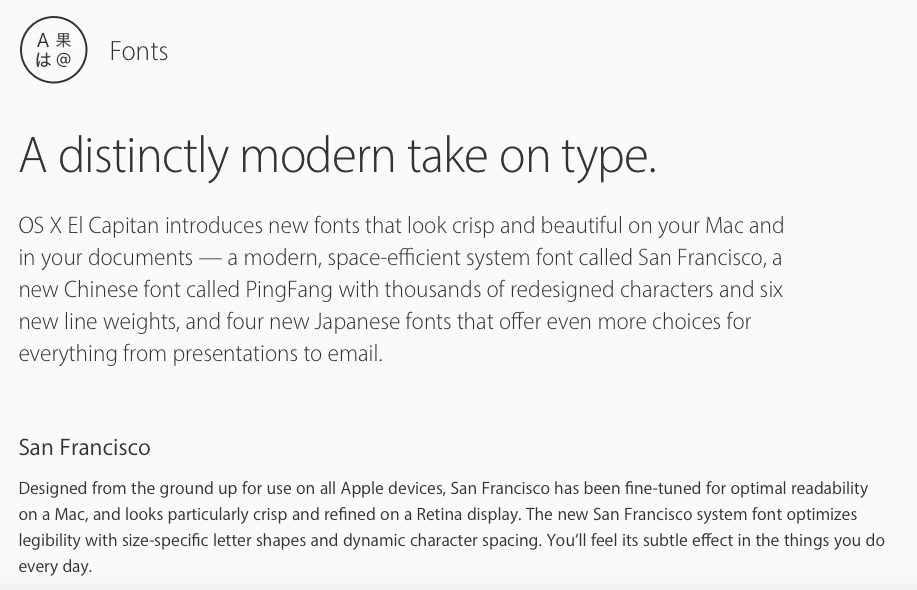
San Francisco Font Example
Ignorance is not an excuse for breaking the law. Configure symbols with a font. Like san francisco, sf arabic features nine weights and variable optical sizes that automatically adjust spacing and contrast based on the point size.
The comparison is shown in the second example by taking two headings with different classes as “one” or “two”. Android/material design font size guidelines The default ios font is called san francisco and if you don’t explicitly change it, then all of your text will have the default ios look.
Both Are Frankenfaces Stitched Together From A Variety Of Sources.
In my design tool (sketch app) i use sf pro text,. Those don’t match the system font. Be careful that others might appear bigger or smaller, or less legible, even at the same size.
Both roboto and san francisco are hybrid fonts, pulling together elements from a handful of different typefaces instead of having a consistent design language. Sf symbols provides a set of over 3,200 consistent, highly configurable symbols you can use in your app. Supported fonts for android with a code example